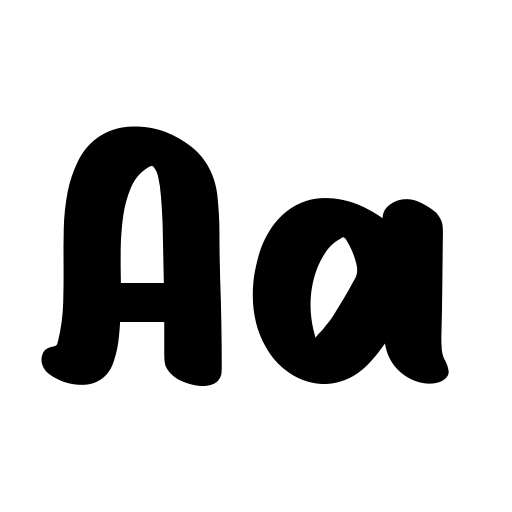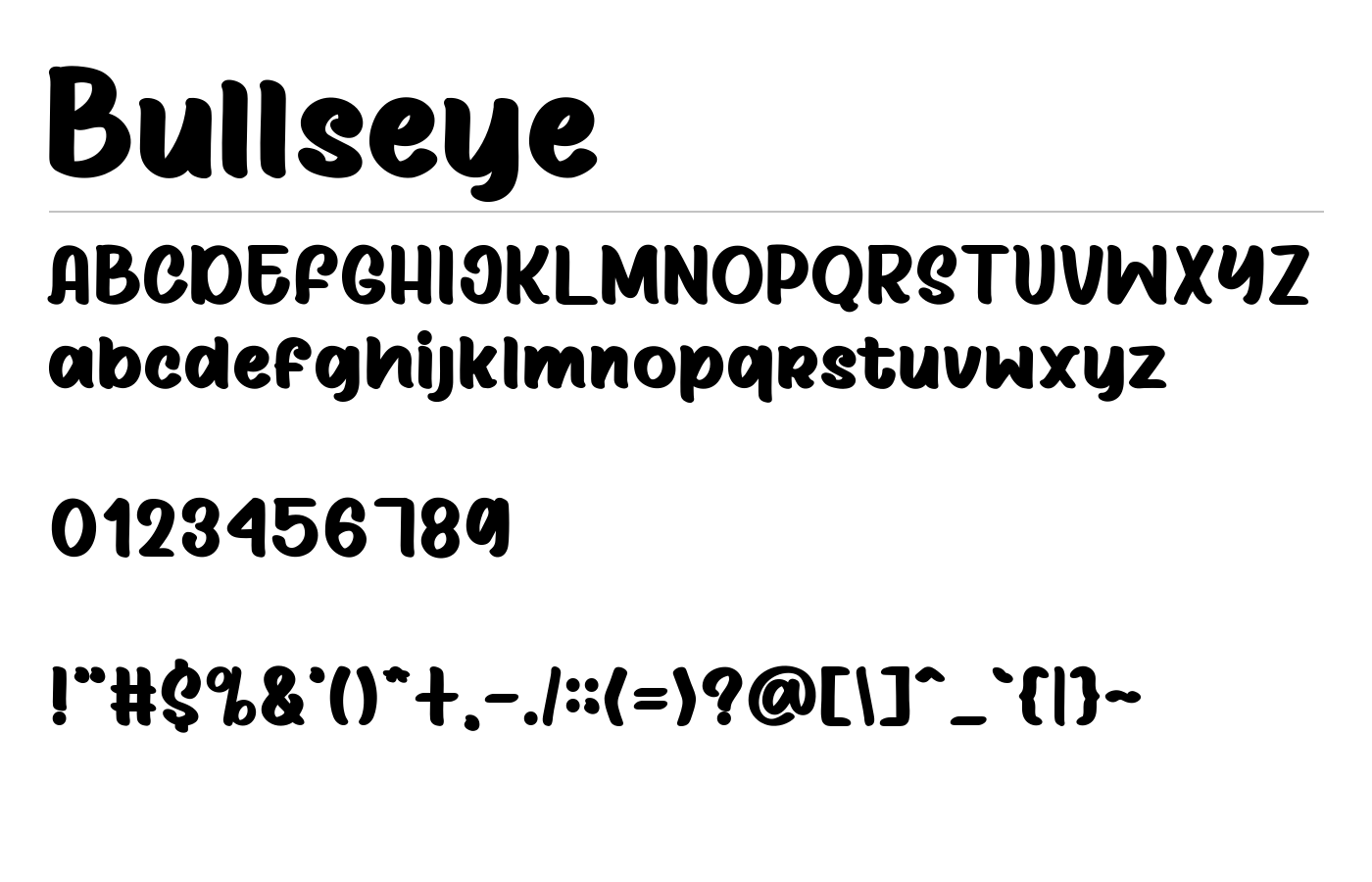
Bullseye is a bold, playful sans serif font with rounded, hand-drawn shapes that give it a friendly and casual feel. Its thick strokes and soft curves make it ideal for eye-catching headlines, logos, and designs aimed at a fun or youthful audience. This font works great for packaging, children's materials, or any creative project that needs an approachable and energetic personality.
Bullseye Font
| Designer | Stefie Justprince |